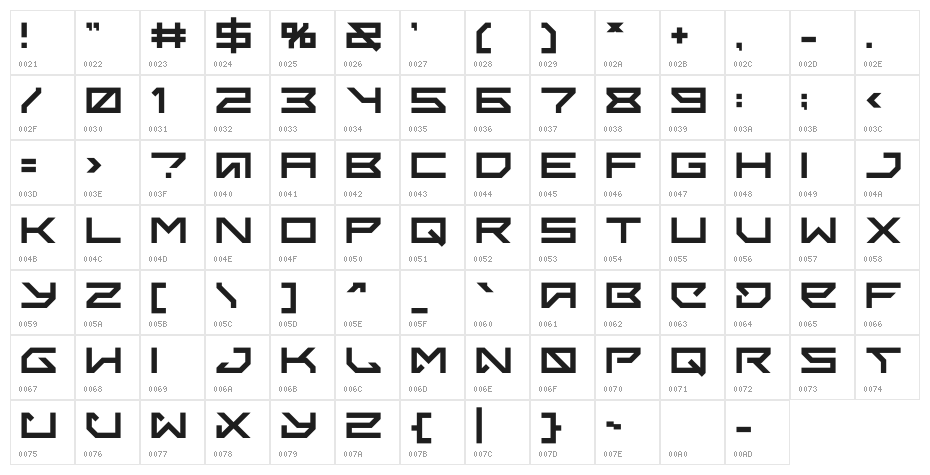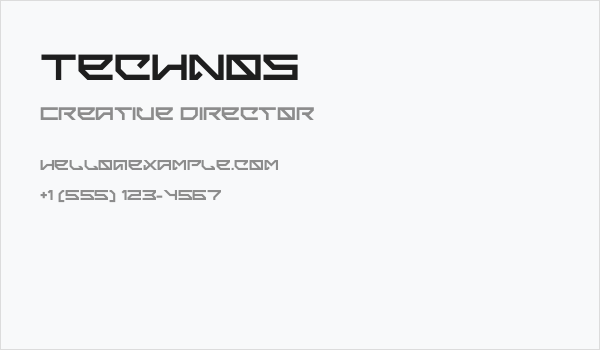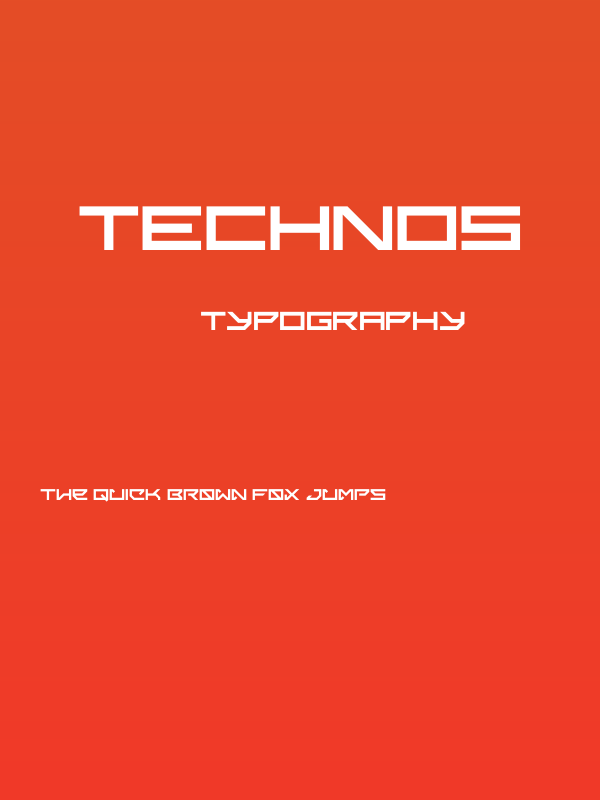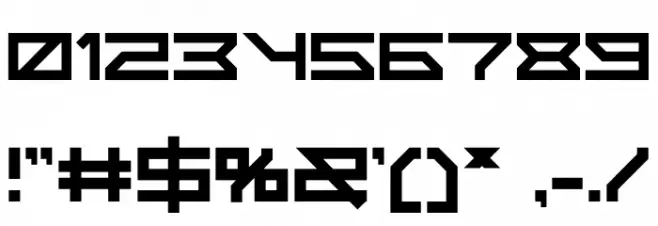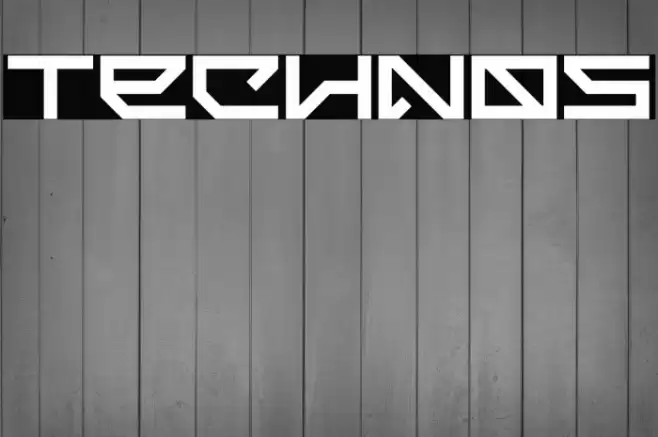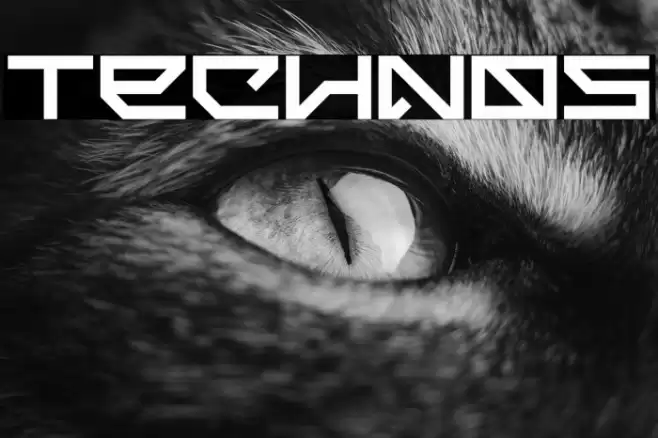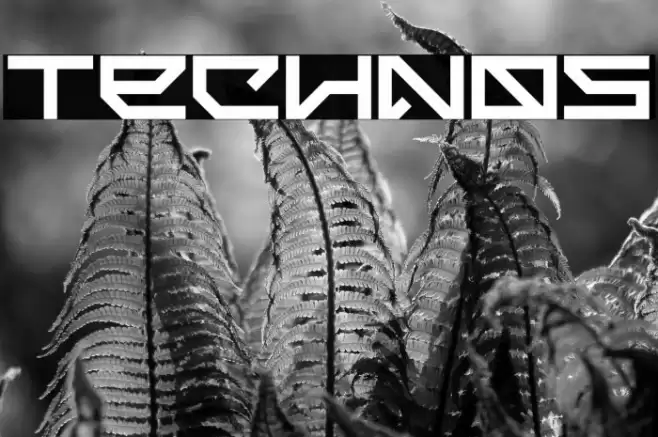
Technos Font
Technos Description
This font features a futuristic and geometric design, characterized by sharp angles and a bold presence. The uppercase and lowercase letters maintain a consistent style, with angular cuts and a modern aesthetic. The numbers and special characters follow the same design principles, ensuring uniformity across all glyphs. The overall appearance is striking and suitable for projects that require a contemporary and edgy look.
| Proposed Projects | Ideal for technology branding, sci-fi movie posters, video game titles, and modern advertising campaigns. |